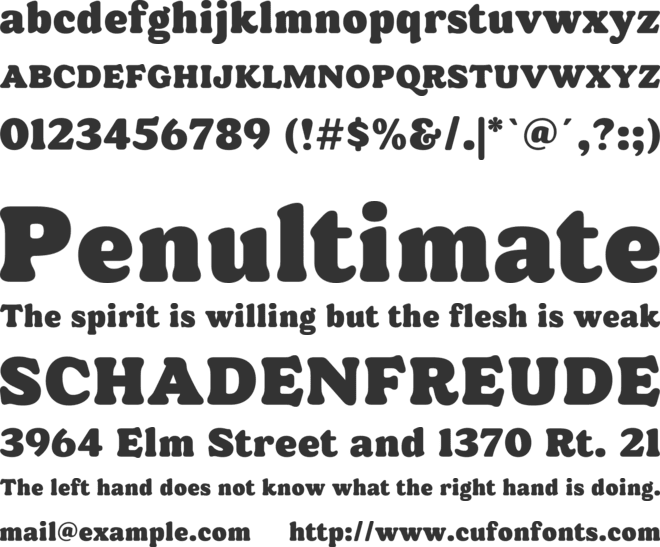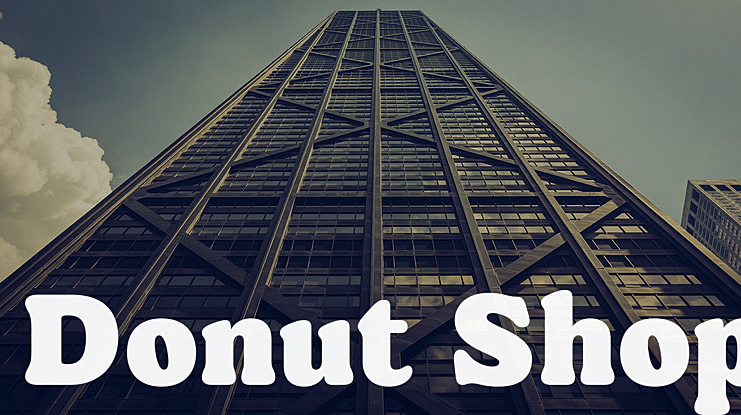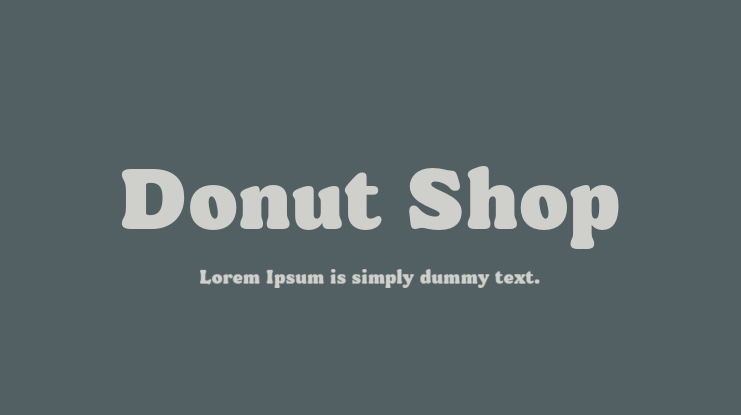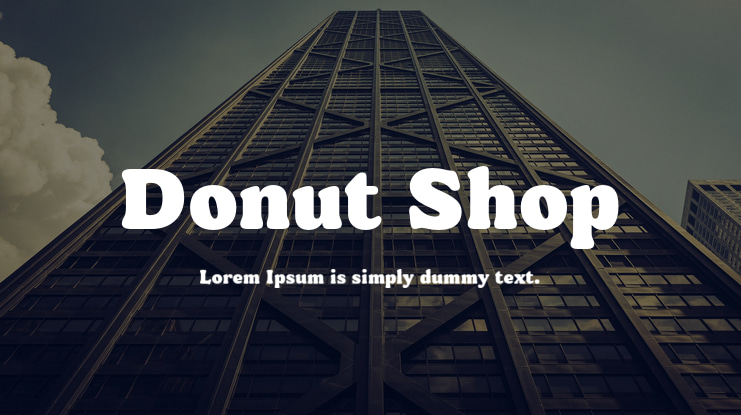
Donut Shop Font Family
Prologue Studio
Designed with a hand-drawn serif font, this font comes in two typefaces: regular and italic. It features soft corners, multilingual support and a selection of ligature options. Inspired by the easy going 70’s, this font is great for large display projects, branding elements, package designs & much more!